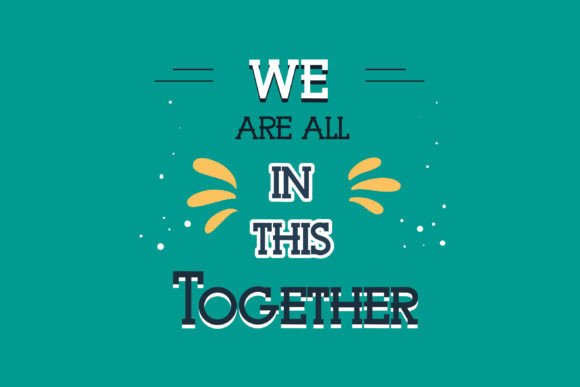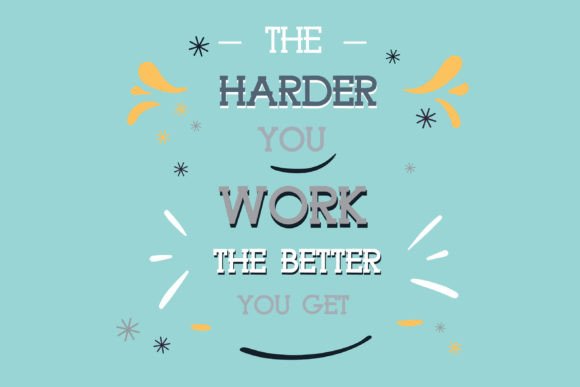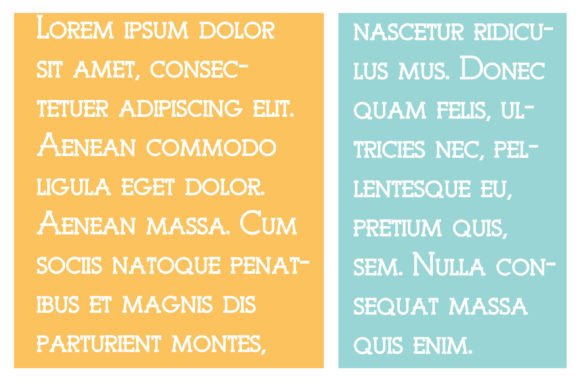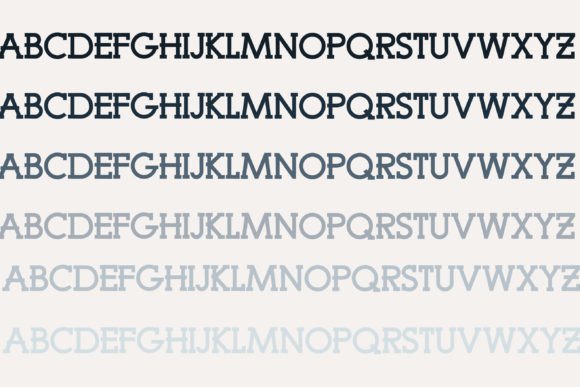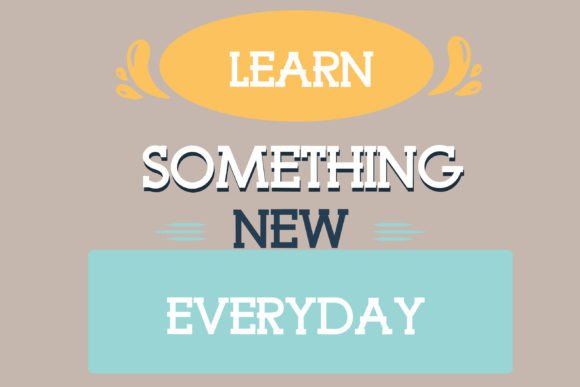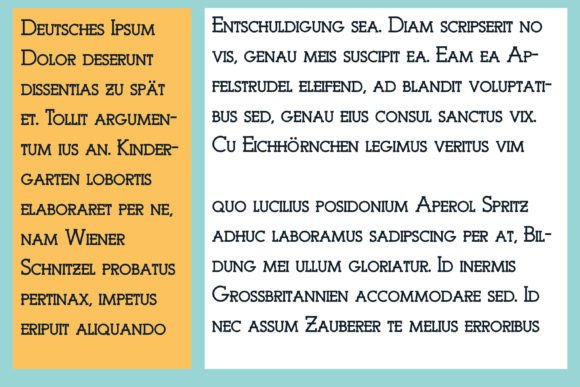
The Birth of a Design Icon: Unveiling the Arizona Font
Have you ever stared at a blank page, waiting for the perfect font to spark your creativity? It’s a moment we’ve all been through – the blank canvas staring back at us, begging for a splash of color, a dash of style, and a pinch of magic. That’s when the Arizona Font comes to the rescue. This stunning serif font is more than just a typeface; it’s a game-changer for designers.
The Arizona Font is a masterful blend of boldness and sophistication, designed to make a lasting impression. Its thick serifs and strong lines exude power and stability, while its unique details and artistic flair add a touch of elegance and refinement. With its eye-catching beauty, it’s the perfect choice for creating a strong visual impact on any project.
Arizona Font Key Features
- Font Family: The Arizona font family consists of 12 fonts, each with its own unique characteristics and styles.
- Unique Characteristics: The Arizona font family features a distinctive, modern design with clean lines and geometric shapes, making it suitable for a variety of applications, including branding, advertising, and editorial design.
Arizona Font Review
As a designer, I was excited to dive into the Arizona font. Initially, I was drawn to its unique, modern aesthetic that’s perfect for any project that requires a clean and minimal look.
- Its clean lines and simple design make it perfect for body text.
- The font has a unique, modern feel that’s perfect for branding and marketing materials.
- The font’s legibility is excellent, making it a great choice for large blocks of text.
- The font lacks a distinct personality, making it feel a bit generic at times.
- The font’s weight is not very extensive, which can limit its versatility.
- The font may not be the best choice for headings or titles, as it can feel a bit too plain.
Overall, I’d say the Arizona font is a solid choice for any project that requires a clean and modern aesthetic. While it may not be the most exciting font out there, it’s definitely reliable and easy to work with.
Tips: Use the Arizona font to create a modern and elegant look for your designs. Experiment with different font sizes and colors to add depth and visual interest.
Tips: Use the Arizona font to create a professional and sophisticated look for your designs. Use it in combination with other fonts to add visual interest and depth.
Tips: Use the Arizona font to create a clean and modern look for your presentations and documents. Use it in combination with other fonts to add visual interest and depth.
The Arizona font is ideal for:
- Modern and elegant designs
- Professional and sophisticated presentations
- Editorial and publishing materials
Tips: Use the Arizona font in combination with other fonts to add visual interest and depth to your designs. Experiment with different font sizes and